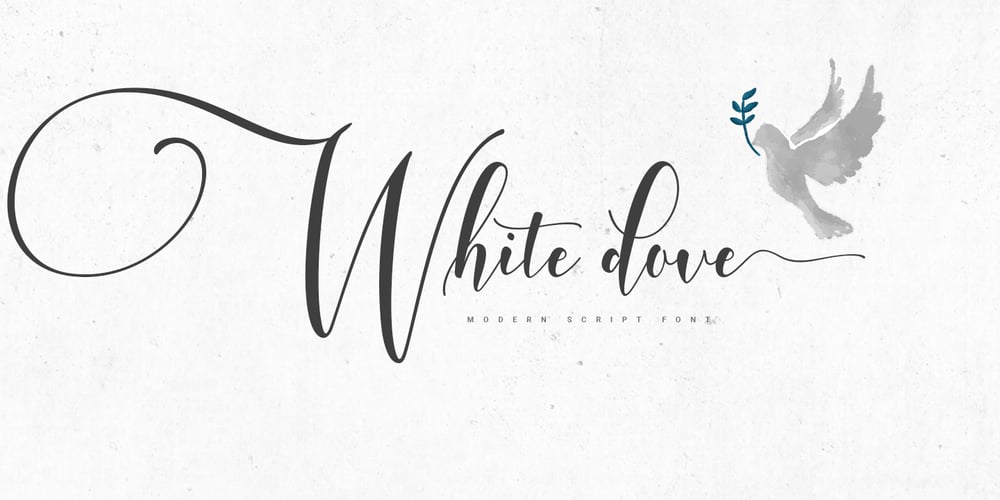
White Dove Script Font Family was designed by Juni Fadil Putra and published by FadeLine Studio. White Dove Script contains 1 styles and family package options. White Dove Script is a modern script font with a sweet and smooth handwritten style. This font has been enriched with additional alternates characters up to 700 glyphs.White Dove Script is perfect for logos, branding projects, homeware designs, product packaging, mugs, quotes, posters, shopping bags, logo’s, t-shirts, book covers, name card, invitation cards, greeting cards, and all your other lovely projects.